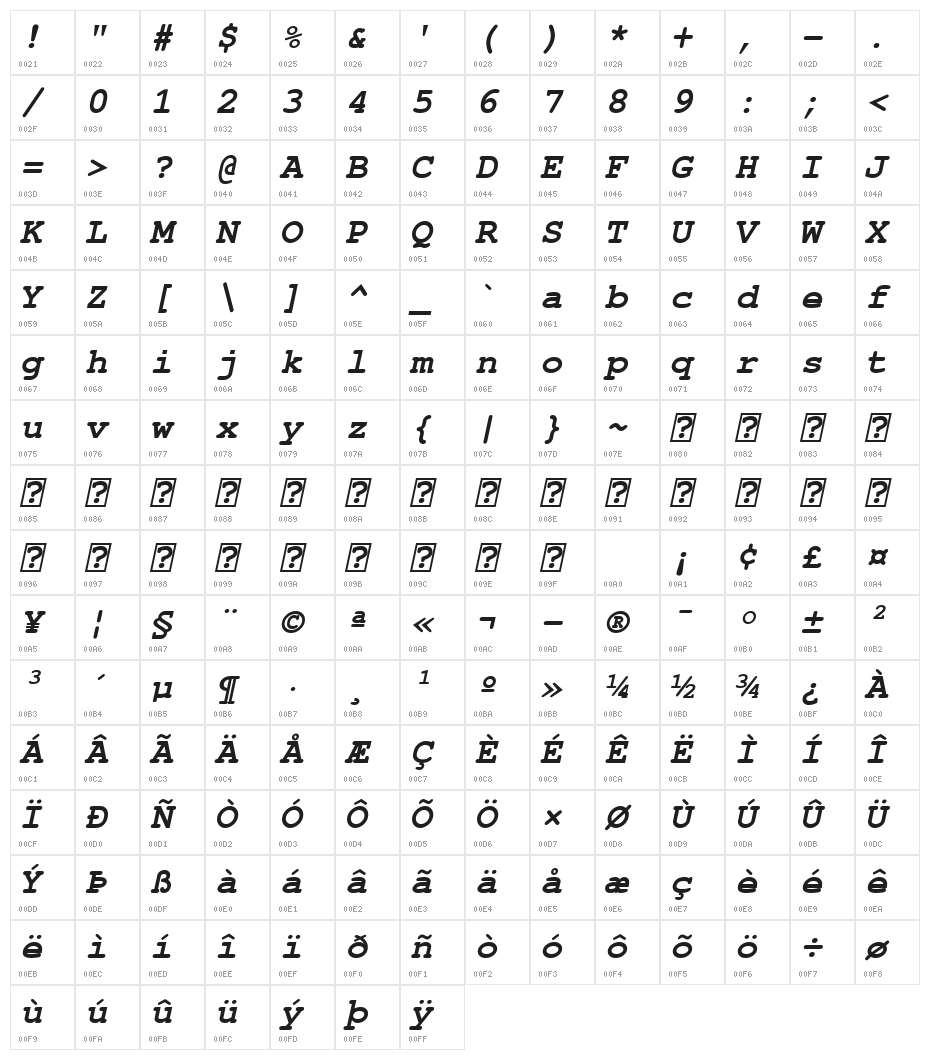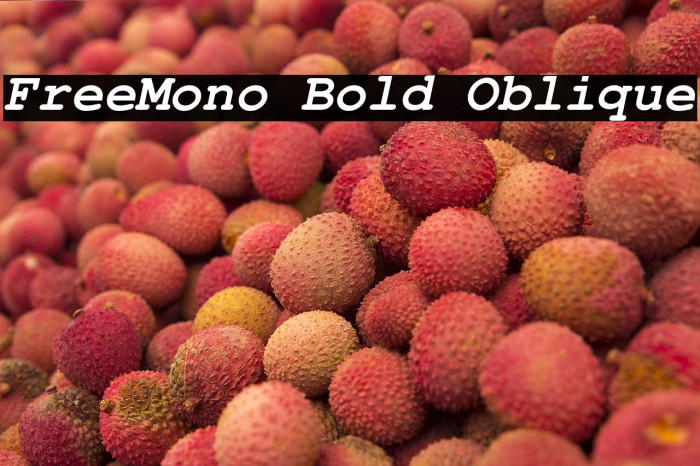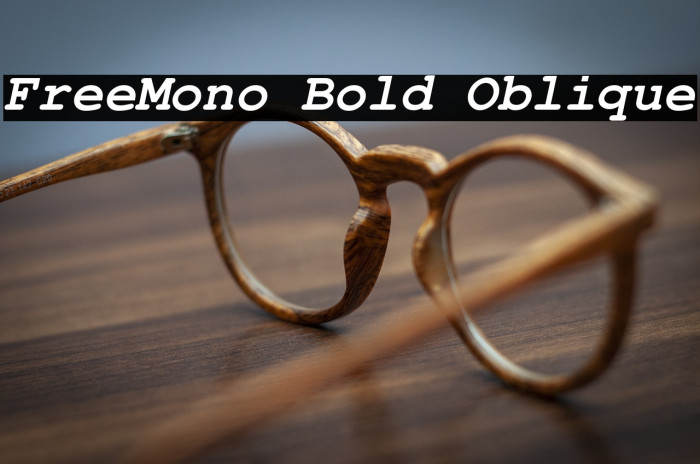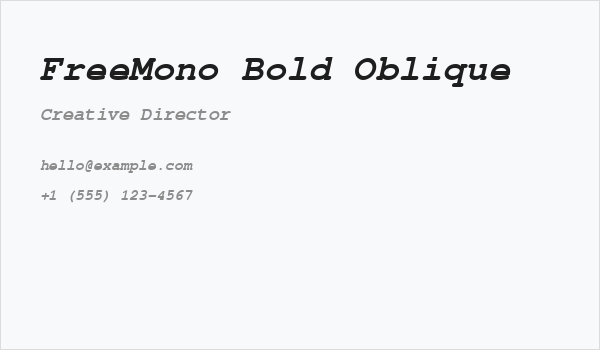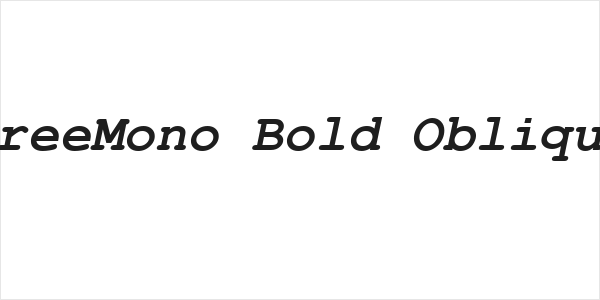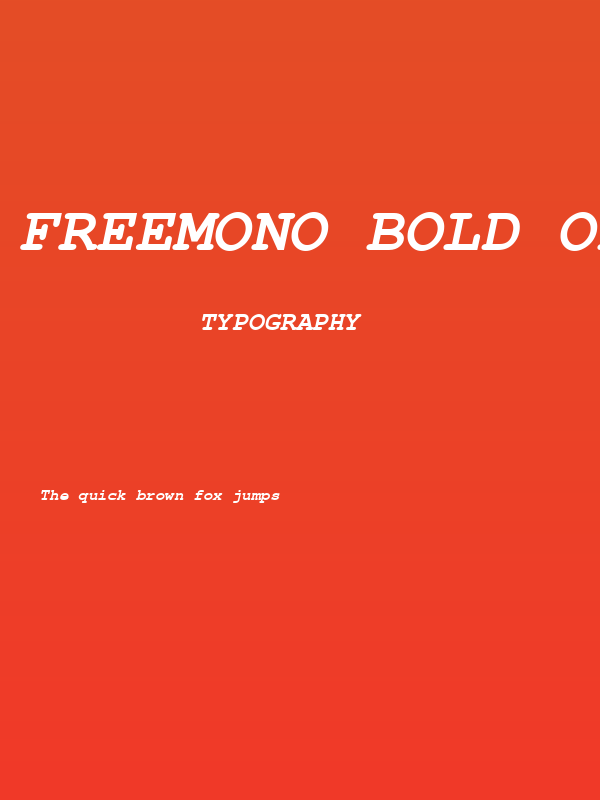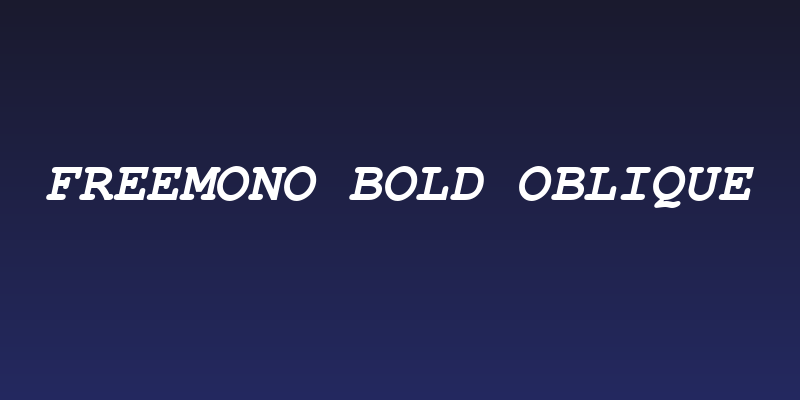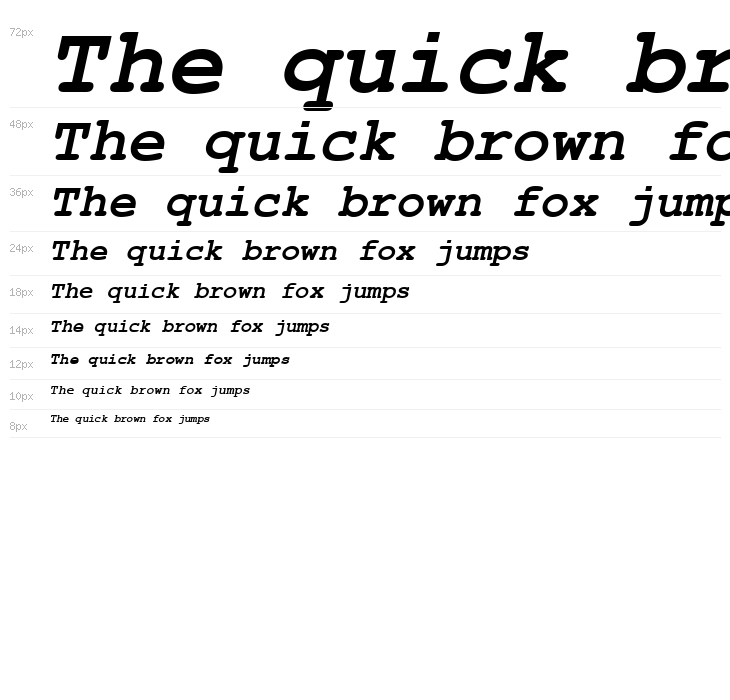
FreeMono Bold Oblique Font
FreeMono Bold Oblique Description
This font features a bold and oblique style, characterized by its monospaced design where each character occupies the same amount of horizontal space. The letters are slanted, giving it an italicized appearance, while maintaining a strong and robust presence due to its bold weight. The strokes are consistent in thickness, providing a uniform look across all characters. The font is clean and legible, making it suitable for coding environments and technical documents where clarity is essential. Its straightforward design is both functional and aesthetically pleasing, with a modern twist on the classic monospaced typeface.
Use CaseCoding, Technical documentation
Proposed ProjectsIdeal for coding, technical documentation, and any project requiring a clear and uniform typeface.